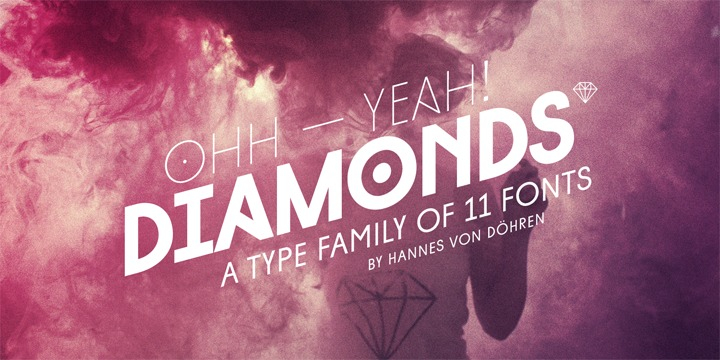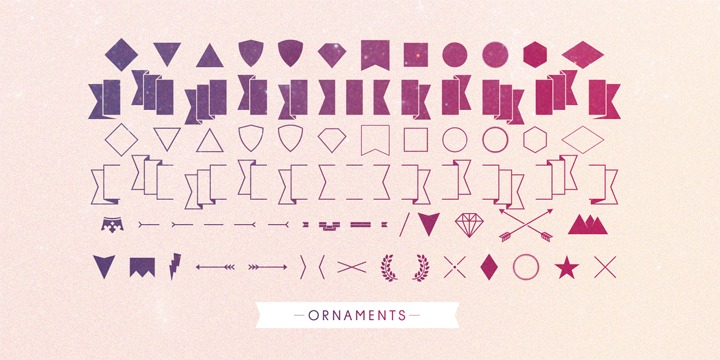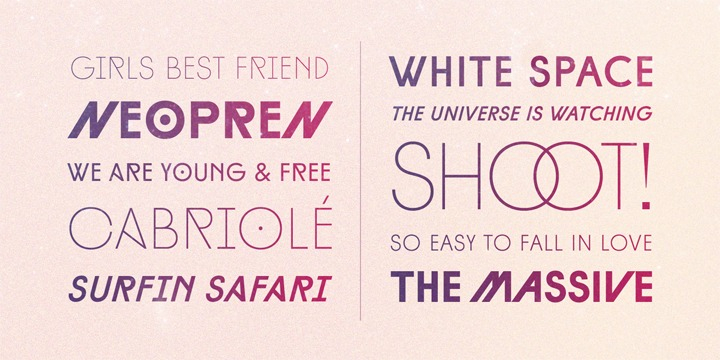
Designed by Hannes von Döhren, Diamonds is a display sans, sans serif and dingbat font family. This typeface has eleven styles and was published by HVD Fonts.
The Diamonds type family was designed by Hannes von Döhren in 2012. It is an experimental search for geometric new letterforms, which are still easy to read and generate some unexpected attention. Hannes wanted to create a straight and clear typeface but pull away from the path of classic and well learned letter shapes.
The Diamonds type family is equipped for complex, professional typography. The OpenType fonts have an extended character set to support Central and Eastern European as well as Western European languages. Each font includes alternate letters, fractions, scientific superior/inferior figures and a set of arrows and geometric forms.
Styles | Display Sans, Sans Serif, Dingbat |
Designer | Hannes von Döhren |